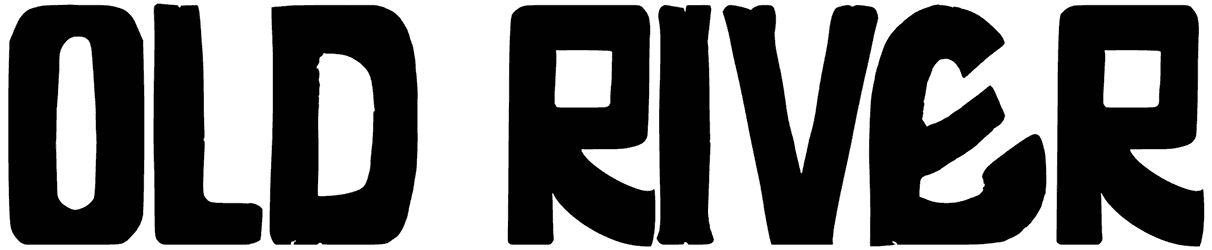
Old River Font
When you look at the Old River font, its bold letters grab your attention at first glance. This retro font has a powerful style that seems attractive to the viewers.
You may use the Old River font for various cases such as posters, flyers, and print on T-shirts; however, it does not support lowercase letters. Moreover, the tall, bulky shape of letters with a sturdy form remains in mind, so give a chance to this good-looking font.